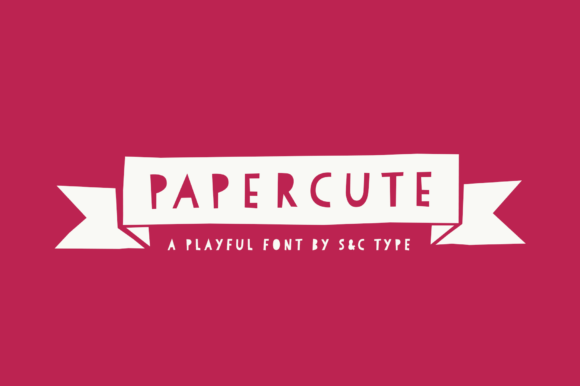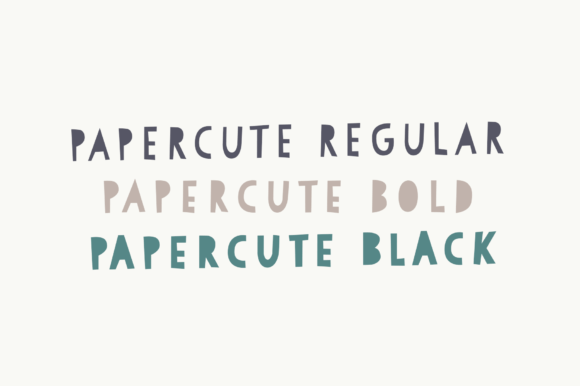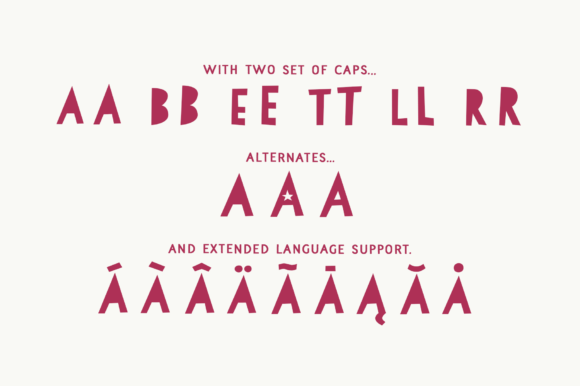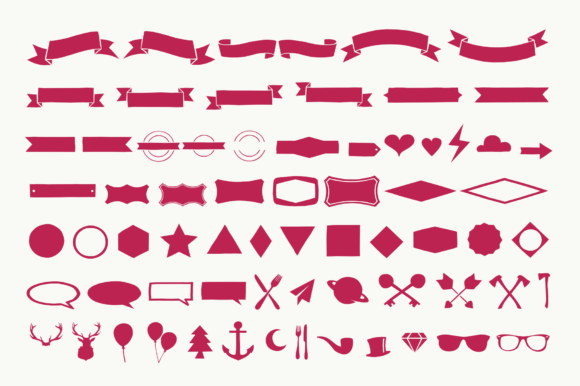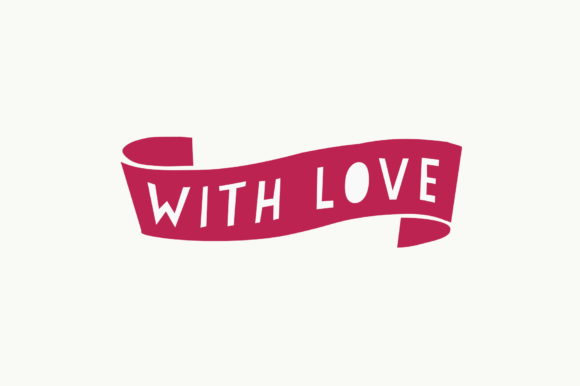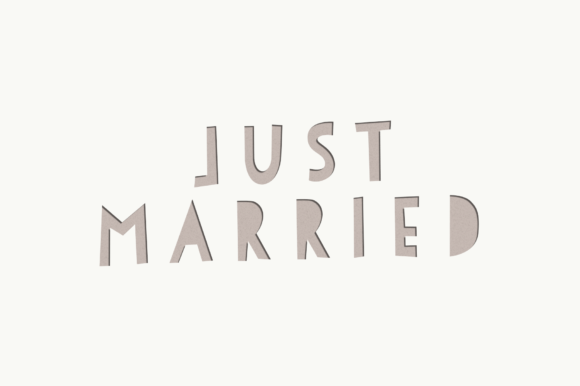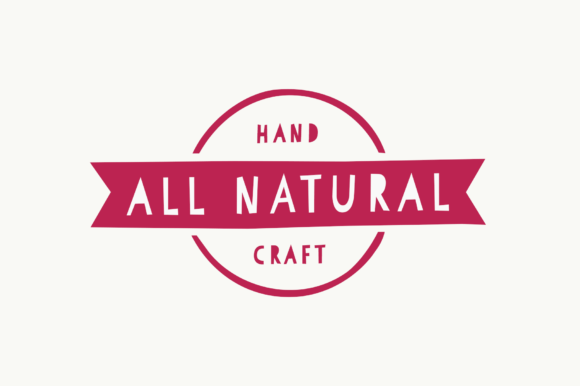
Papercute is a cute hand-drawn display font. Inspired by paper cutting, this font is easy to read and easy to play with. Small caps are a little different than caps to create alternative glyphs. It also comes with a set of cute paper ornaments to enhance your designs.